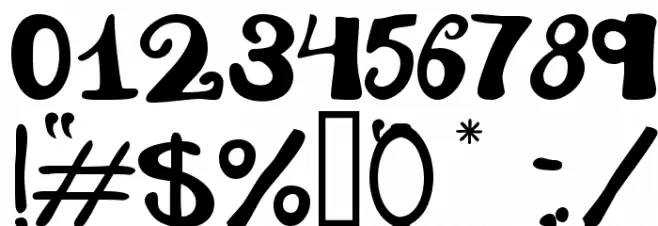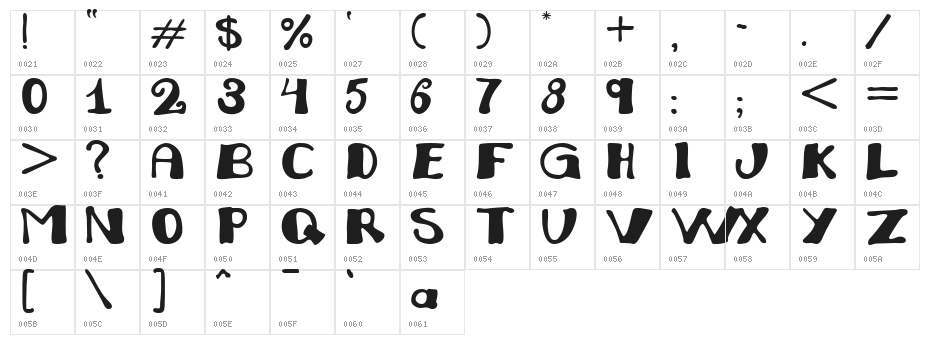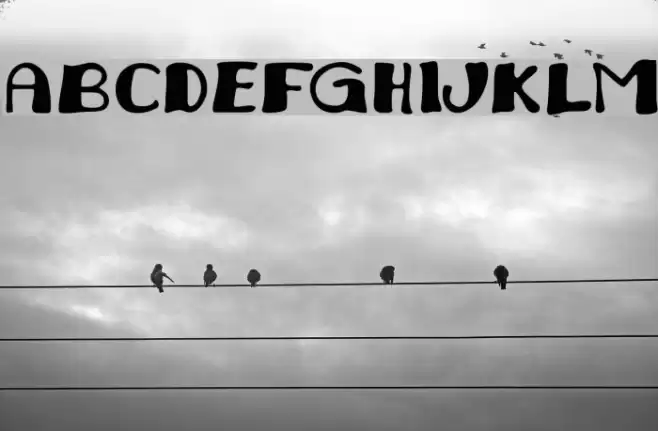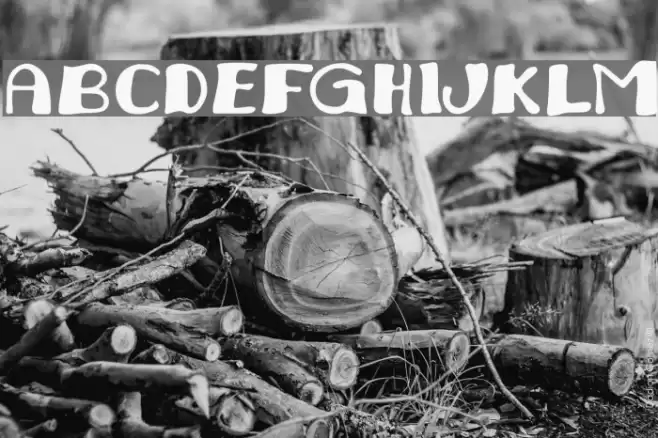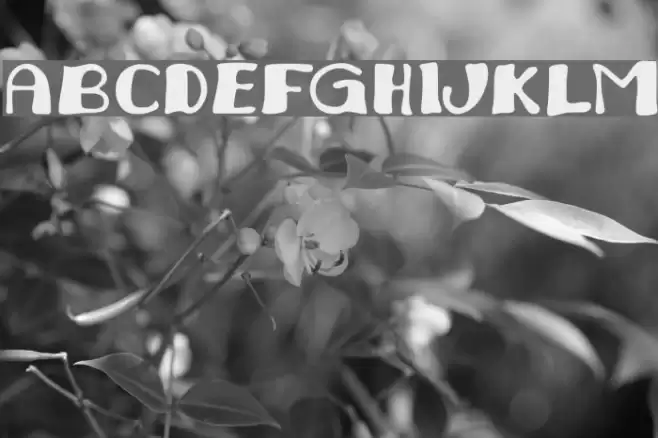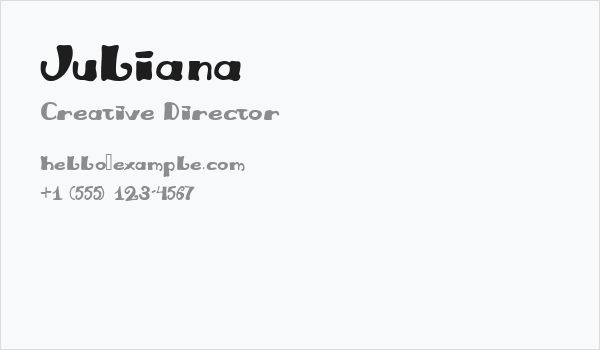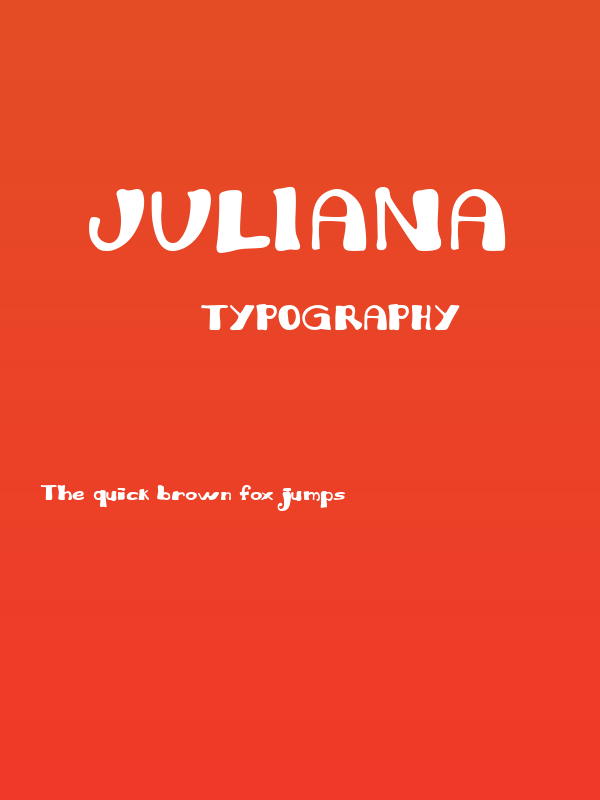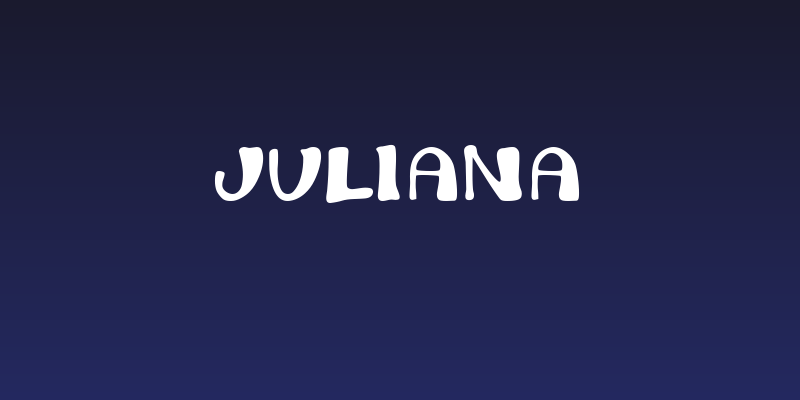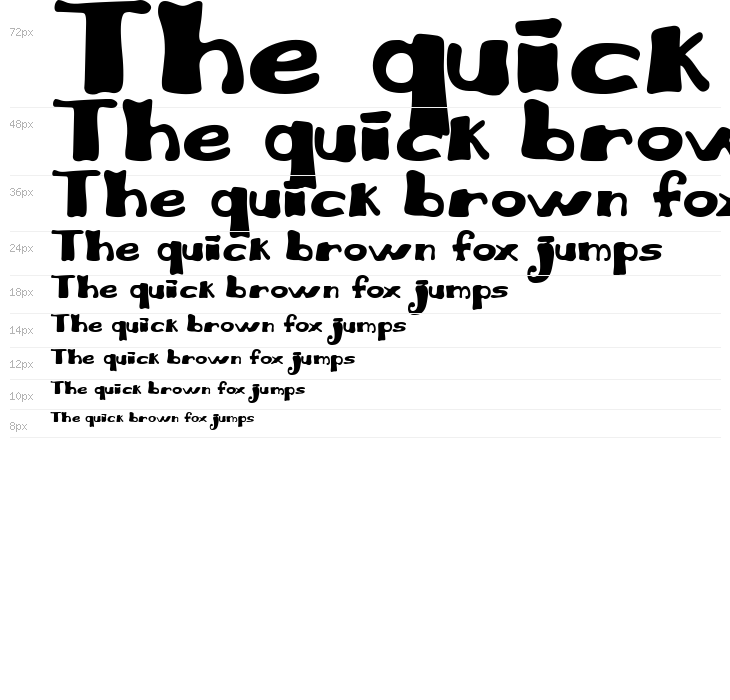
Juliana Font
Juliana Description
This font features a playful and bold design with exaggerated curves and a whimsical style. The characters are thick and rounded, giving a sense of fun and creativity. The uppercase letters are particularly bold, with a slightly uneven baseline that adds to the casual, informal feel. The lowercase letters maintain this playful aesthetic, with some characters having unique, quirky shapes that stand out. Numbers are equally bold and rounded, ensuring consistency throughout the font. Special characters are designed to match the overall style, making this font suitable for projects that require a lively and engaging appearance.